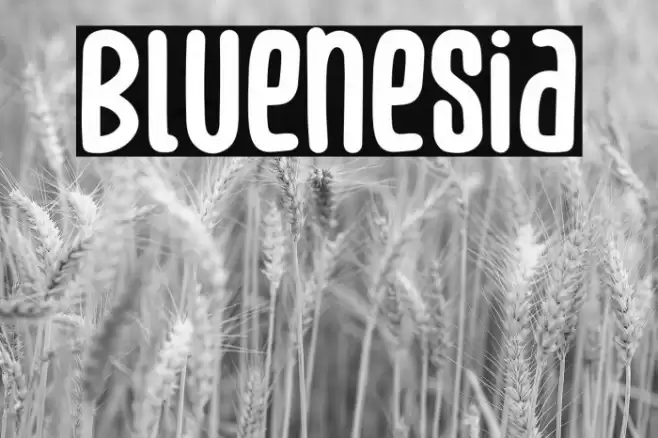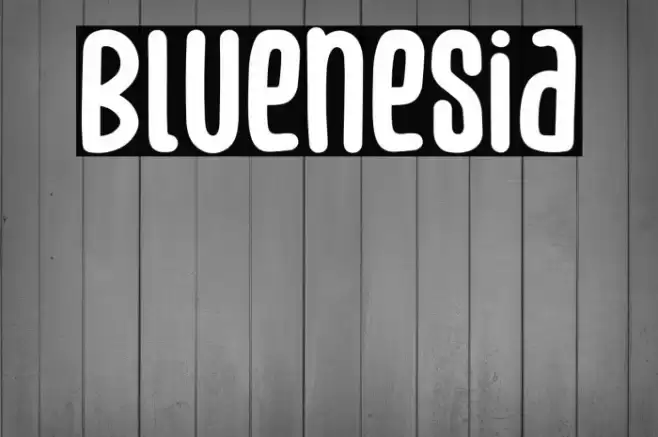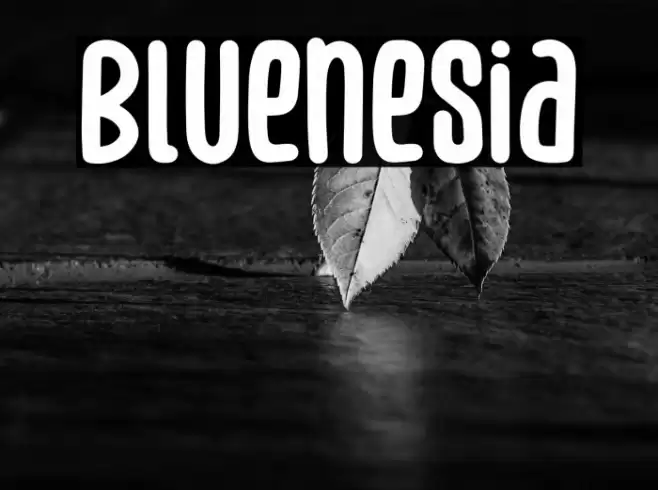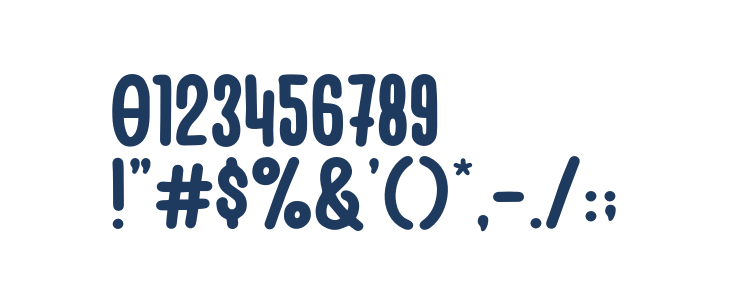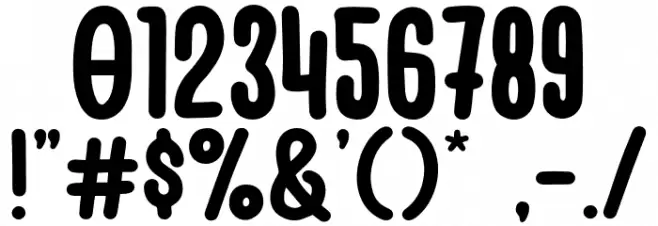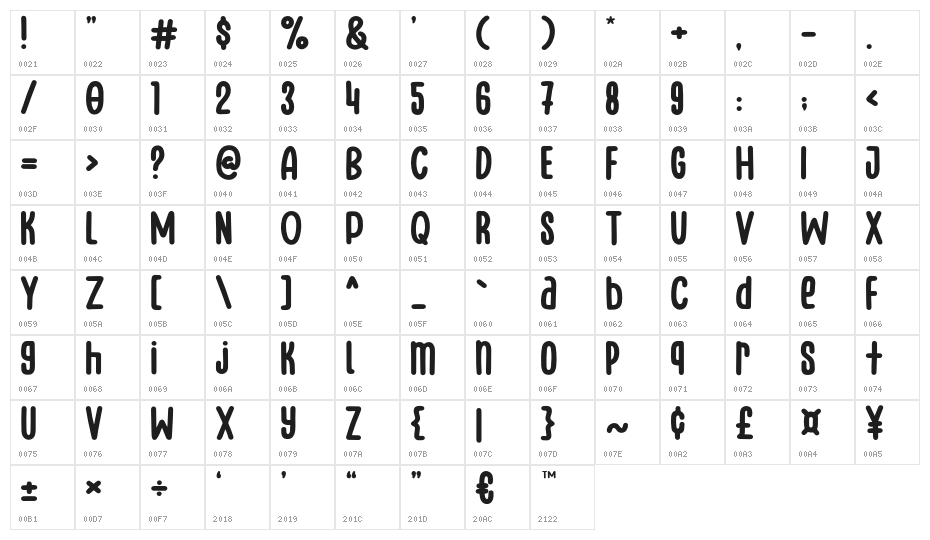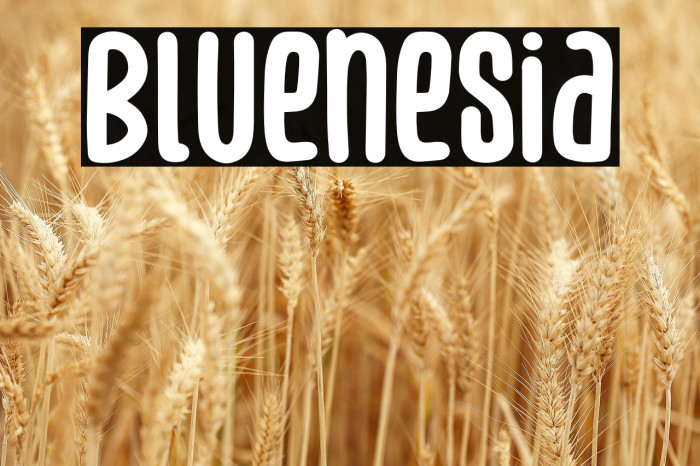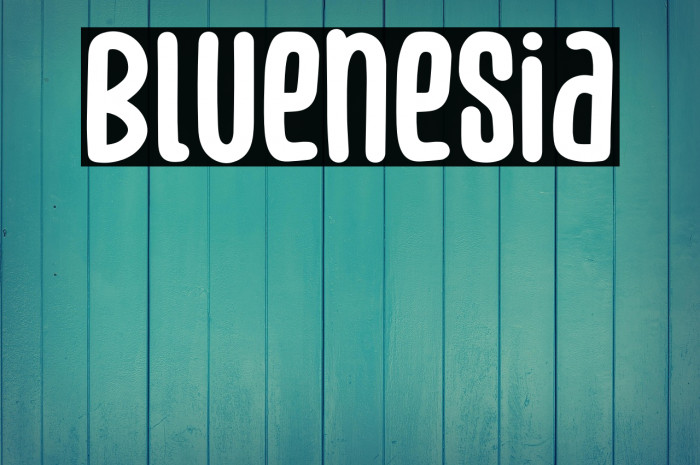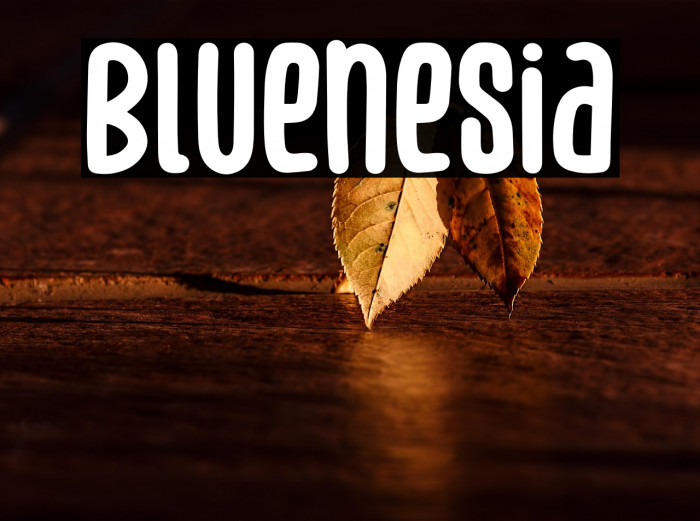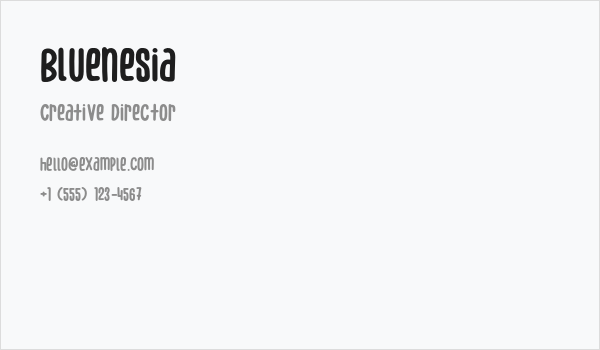
Bluenesia Font
Bluenesia Description
This font features a playful and bold design with rounded edges and a slightly condensed appearance. The characters are thick and uniform, giving it a strong presence. The uppercase and lowercase letters maintain a consistent style, with a friendly and approachable look. The numbers and special characters follow the same design principles, ensuring a cohesive appearance across all glyphs. This font's unique style makes it stand out, with a modern yet whimsical feel that is perfect for creative projects.
A bold, playful font with rounded edges and a modern, whimsical style from Cartoon fonts.
- Proposed Projects: Ideal for children's books, playful branding, posters, and social media graphics.